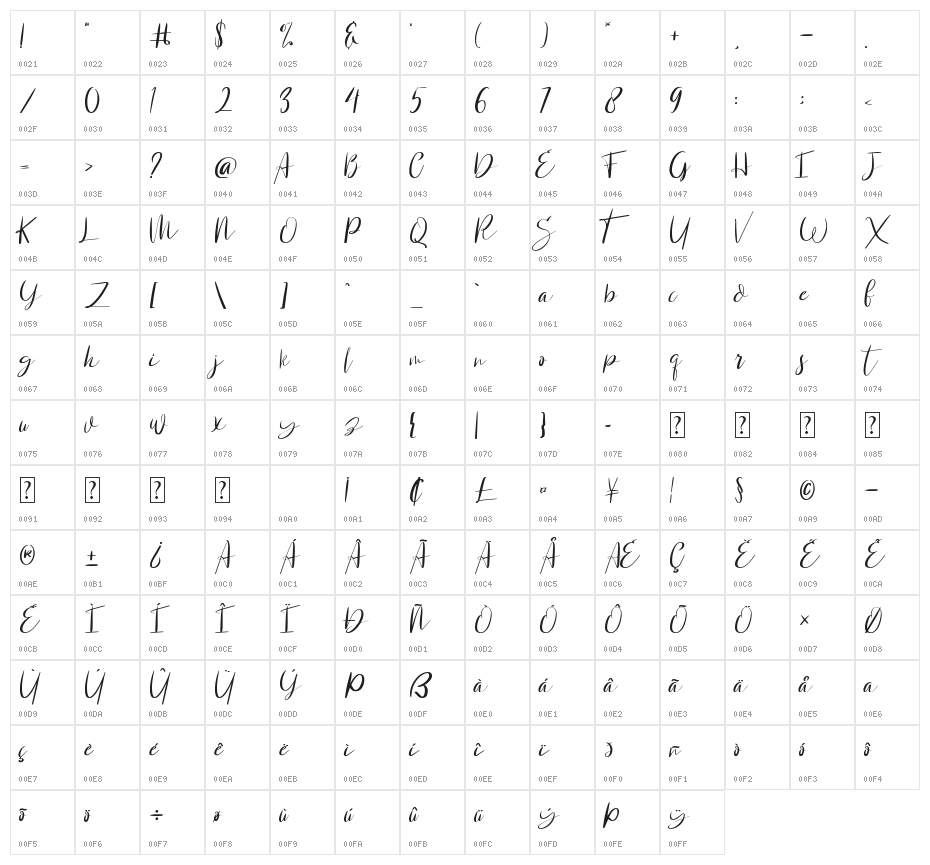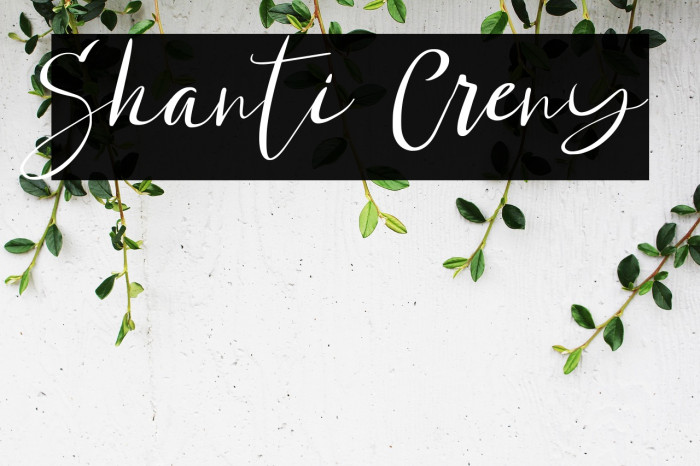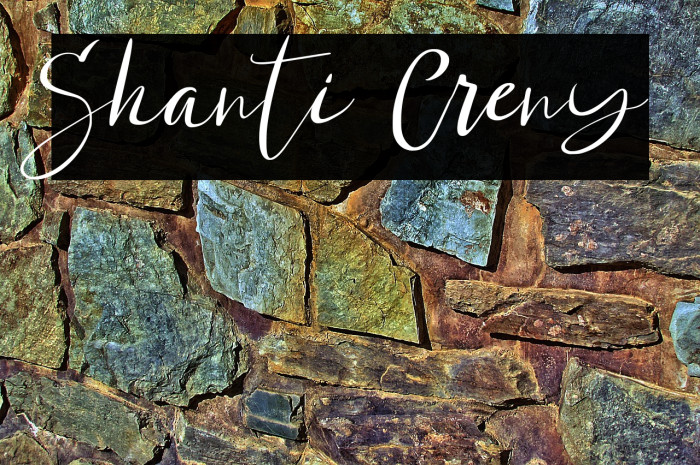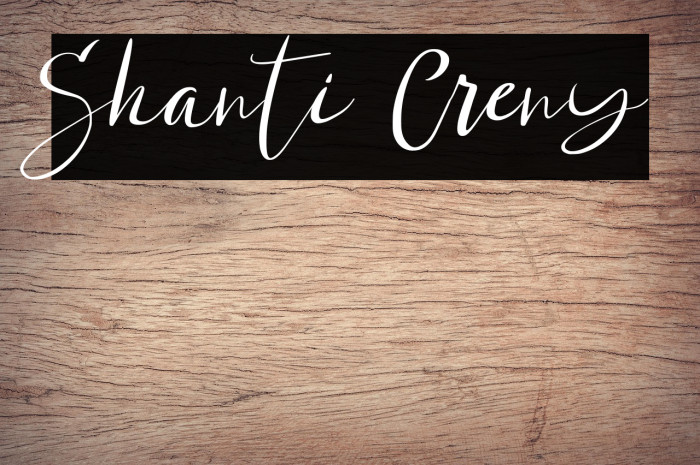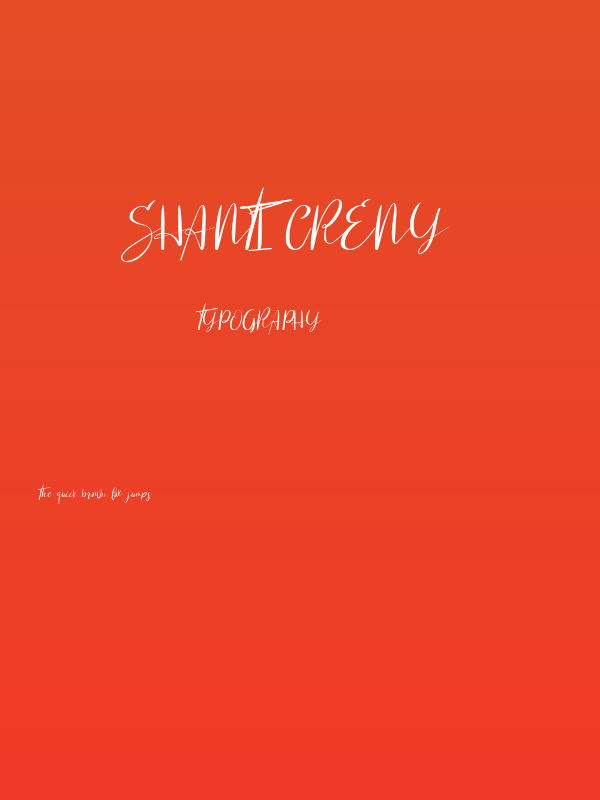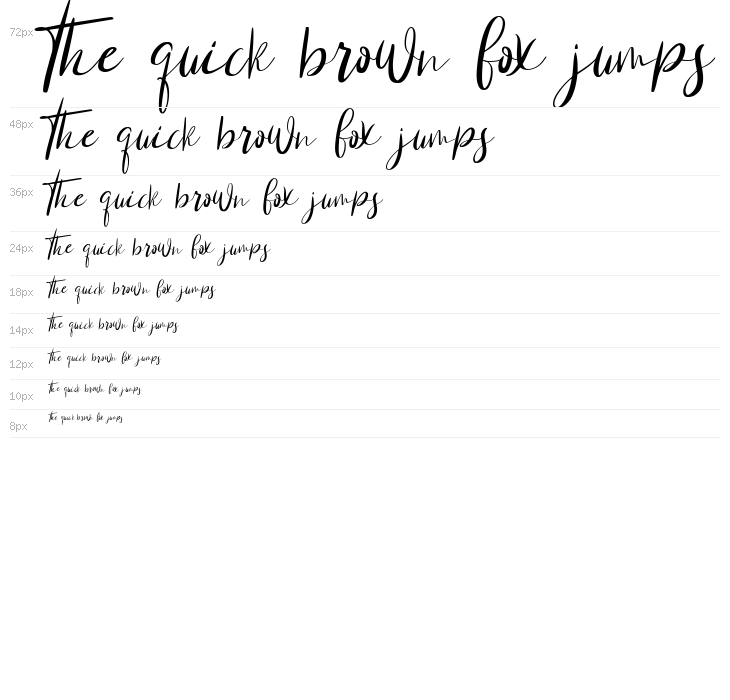
Shanti Creny Font
Shanti Creny Description
This font exhibits a lively and dynamic script style, characterized by its flowing and interconnected letterforms. The uppercase letters are bold and expressive, with a noticeable slant that adds a sense of movement and elegance. The lowercase letters maintain a consistent style, featuring smooth curves and loops that enhance readability while retaining a handwritten charm. Numbers and special characters are crafted with the same attention to detail, ensuring a cohesive look across all elements. The overall design is both artistic and functional, making it suitable for a variety of creative applications.
Use CaseLogos, Invitations, Artistic projects
Proposed ProjectsIdeal for wedding invitations, greeting cards, branding projects, and artistic posters.